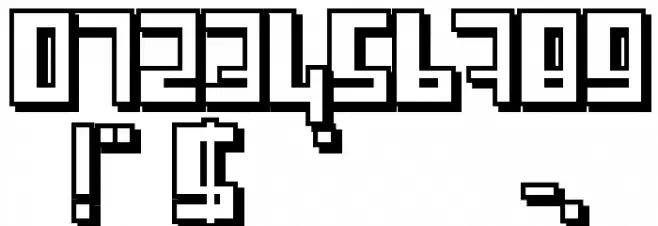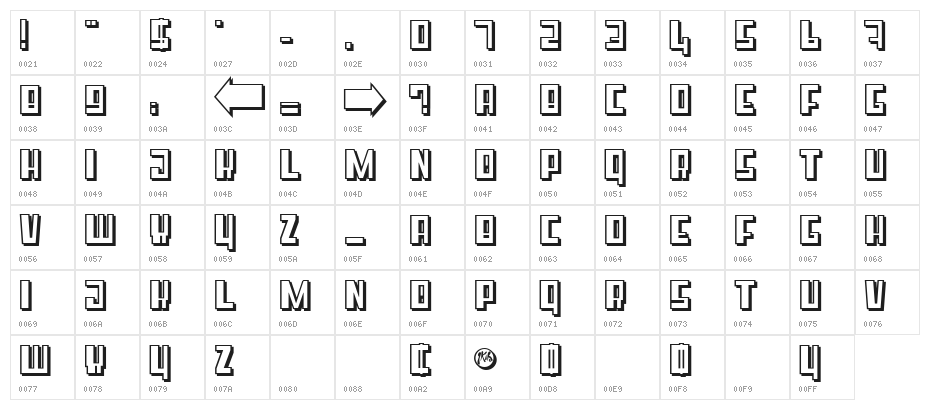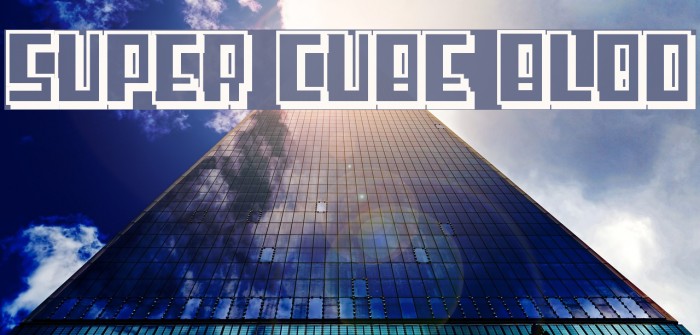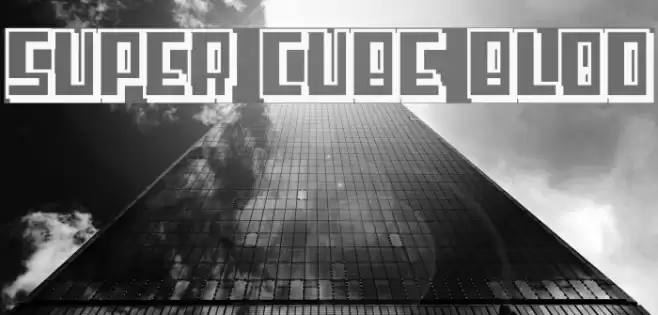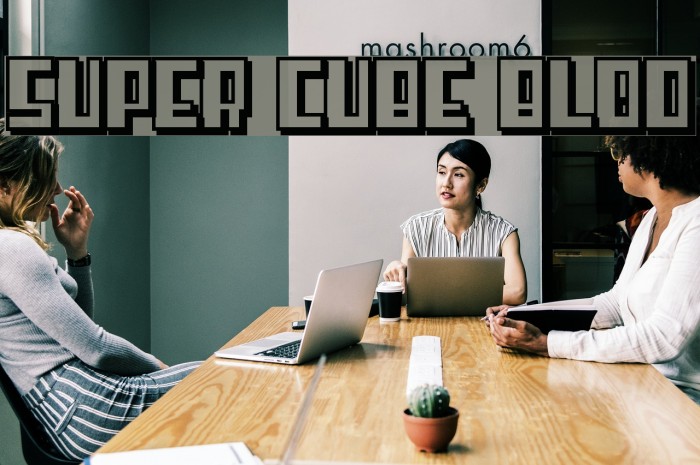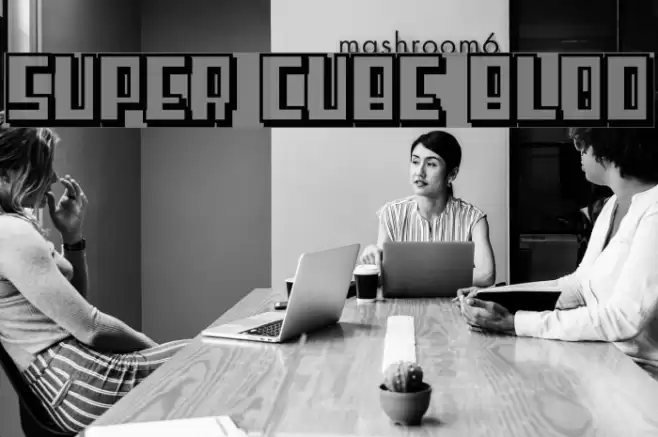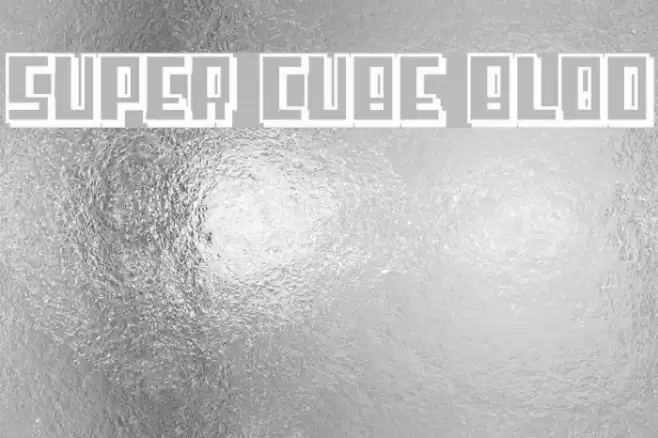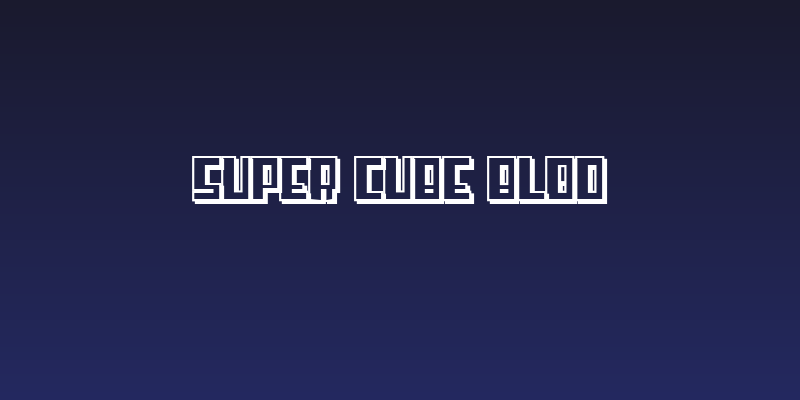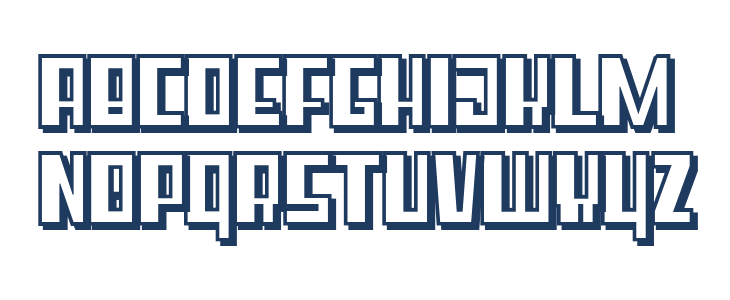
Super cube Blod Font
Super cube Blod Description
This font features a bold, geometric design with a three-dimensional cube-like appearance. Each character is constructed with thick, blocky lines that create a strong visual impact. The letters are uniformly structured, maintaining a consistent height and width, which contributes to a cohesive and modern aesthetic. The font's unique style is characterized by its sharp angles and straight edges, giving it a futuristic and digital feel. The numbers and special characters follow the same design principles, ensuring a harmonious look across all glyphs. This font is ideal for projects that require a bold statement and a contemporary edge.